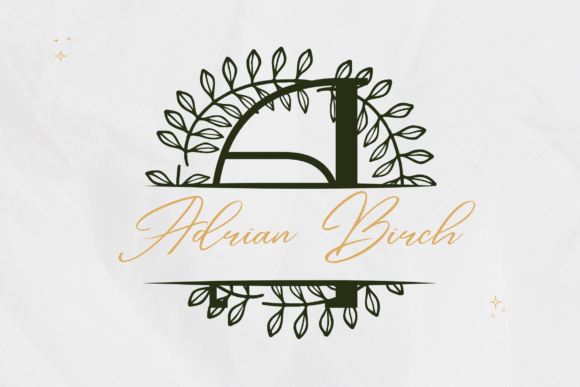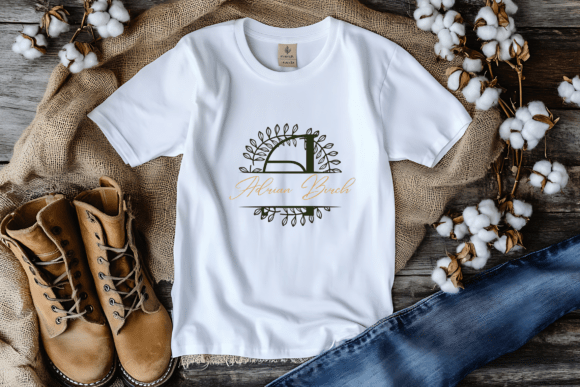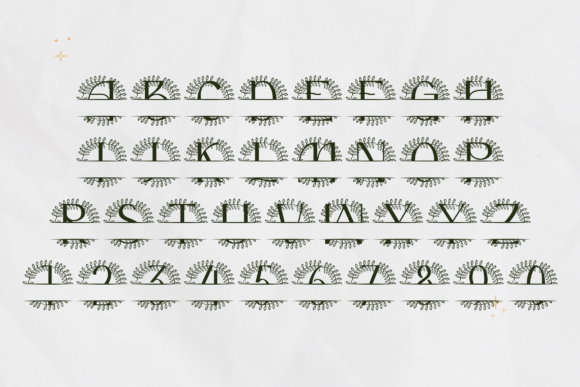
Introduction to Novara Split Monogram Font
Novara Split Monogram is a modern split serif font made for effortless personalization.
Each uppercase letter includes a precise horizontal split that opens a clear space for names, dates, or short phrases The letterforms keep Novaraโs calm, architectural rhythm, so your custom text settles neatly into a refined silhouette.